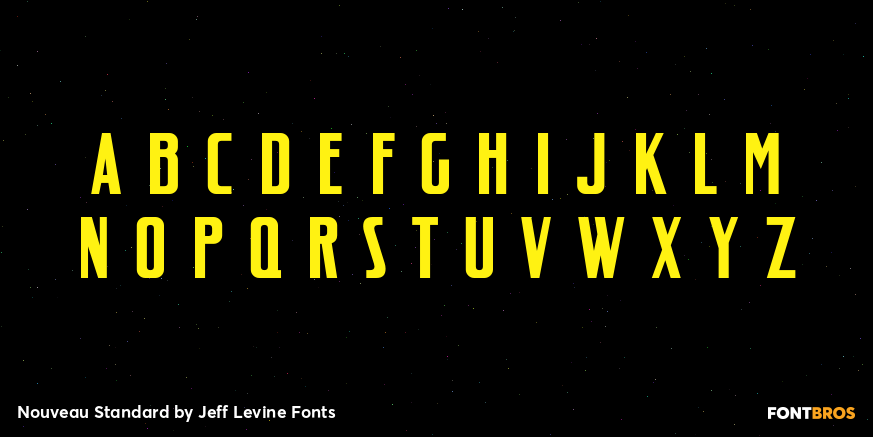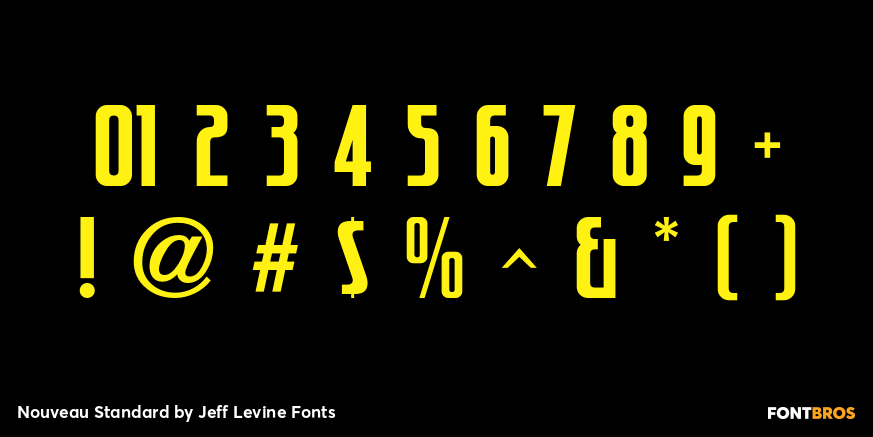
Nouveau Standard
The hand lettering found on the cover of the 1912 sheet music for "Somebody Else is Getting It" featured a blockish Art Nouveau style with rounded corners and a very lurid title [although it likely had a more innocent meaning in those days than the casual observer might interpret today].
Now available as Nouveau Standard JNL, it is available in both regular and oblique versions.
Nouveau Standard by Jeff Levine Fonts